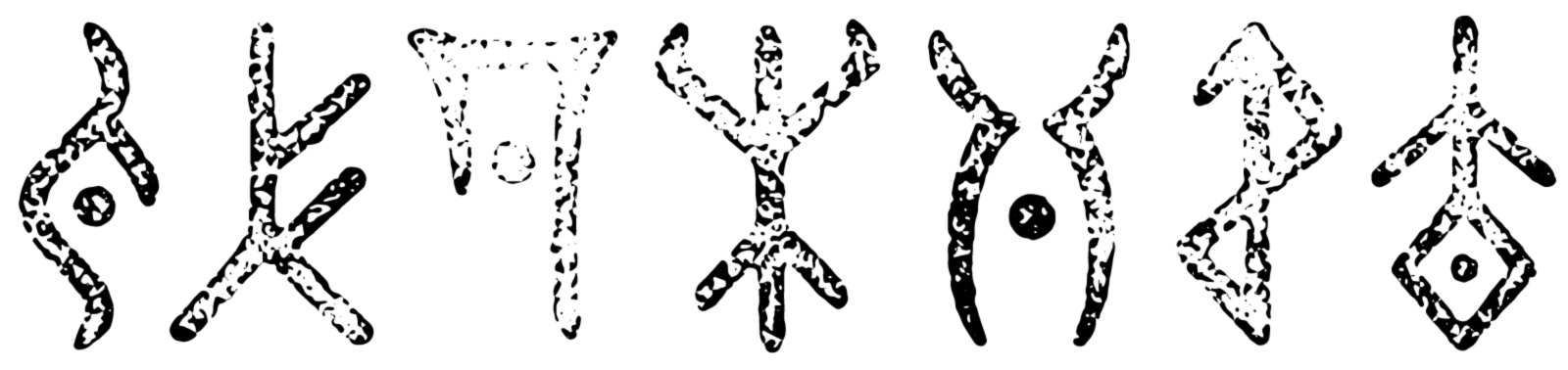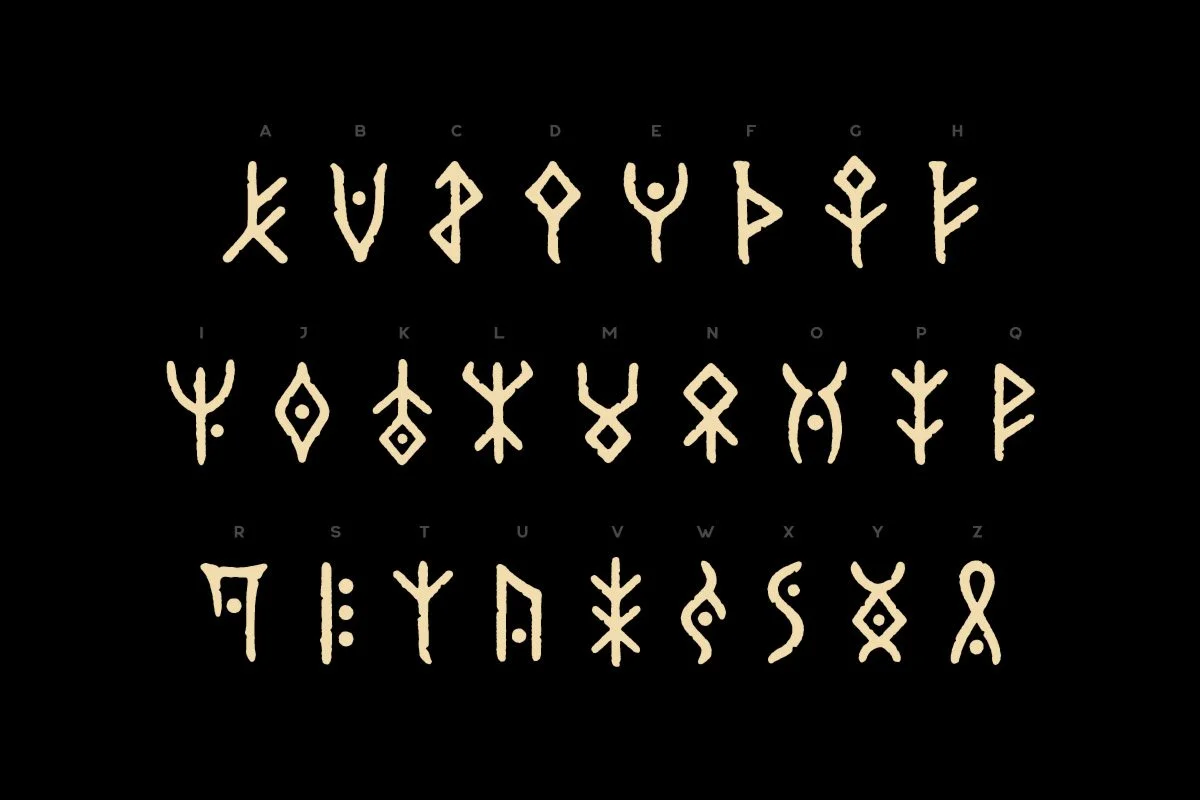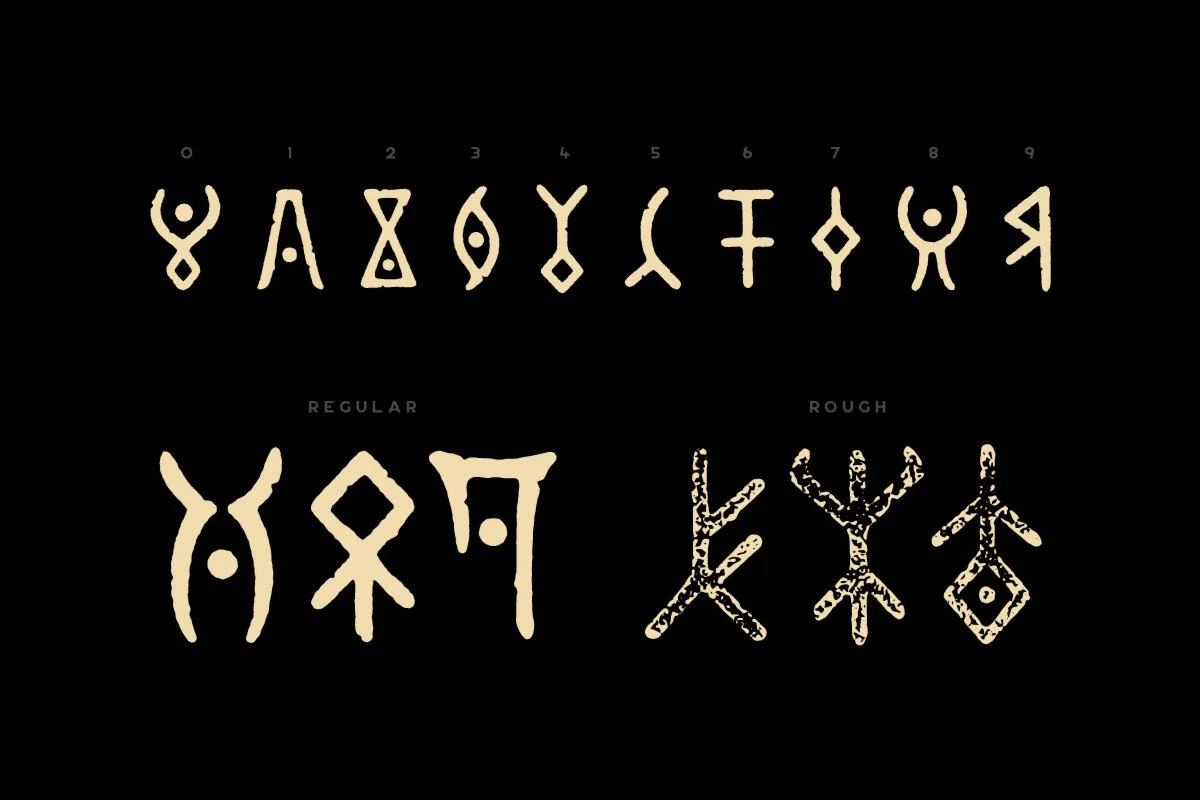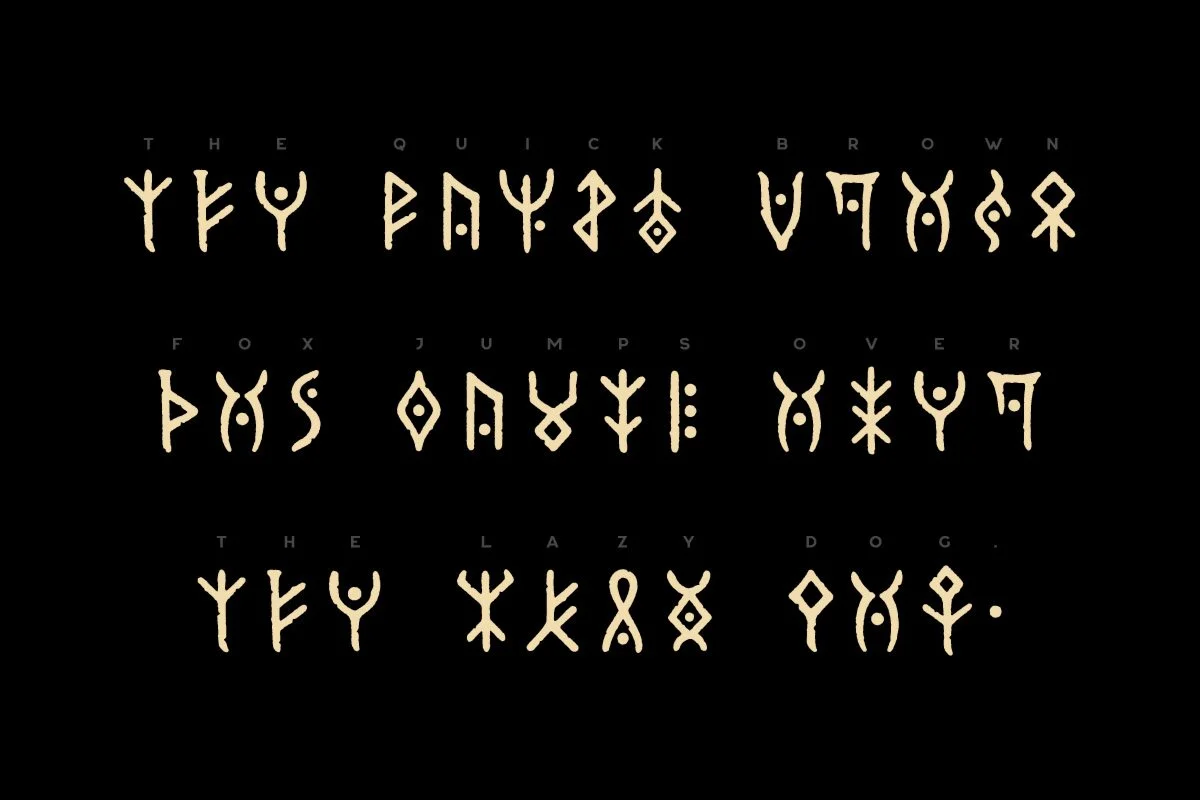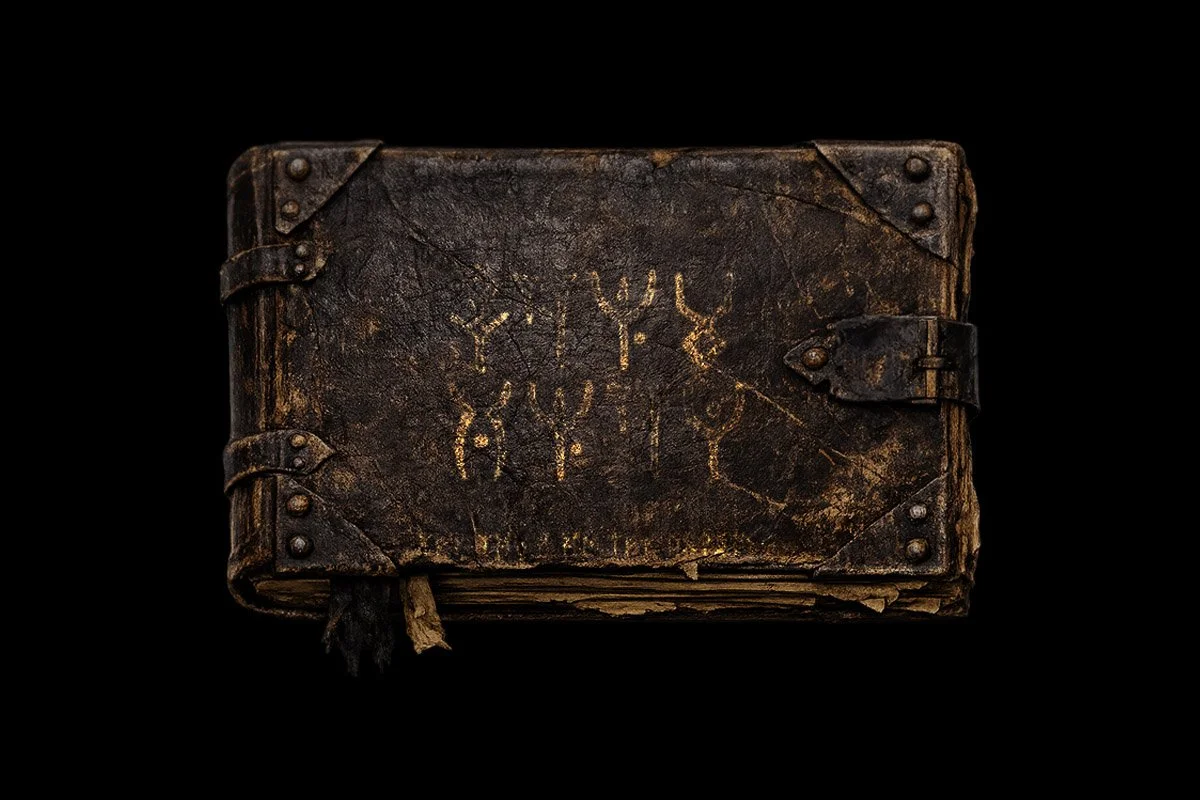
Warlock is a fictional language font that’s great for fantasy and sci-fi worlds, comes in 2 styles. This font only includes letters, numbers and very limited punctuation.
Character Set: Uppercase letters, numbers, limited punctuation